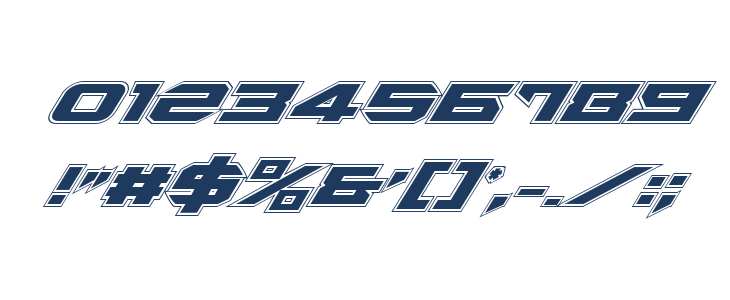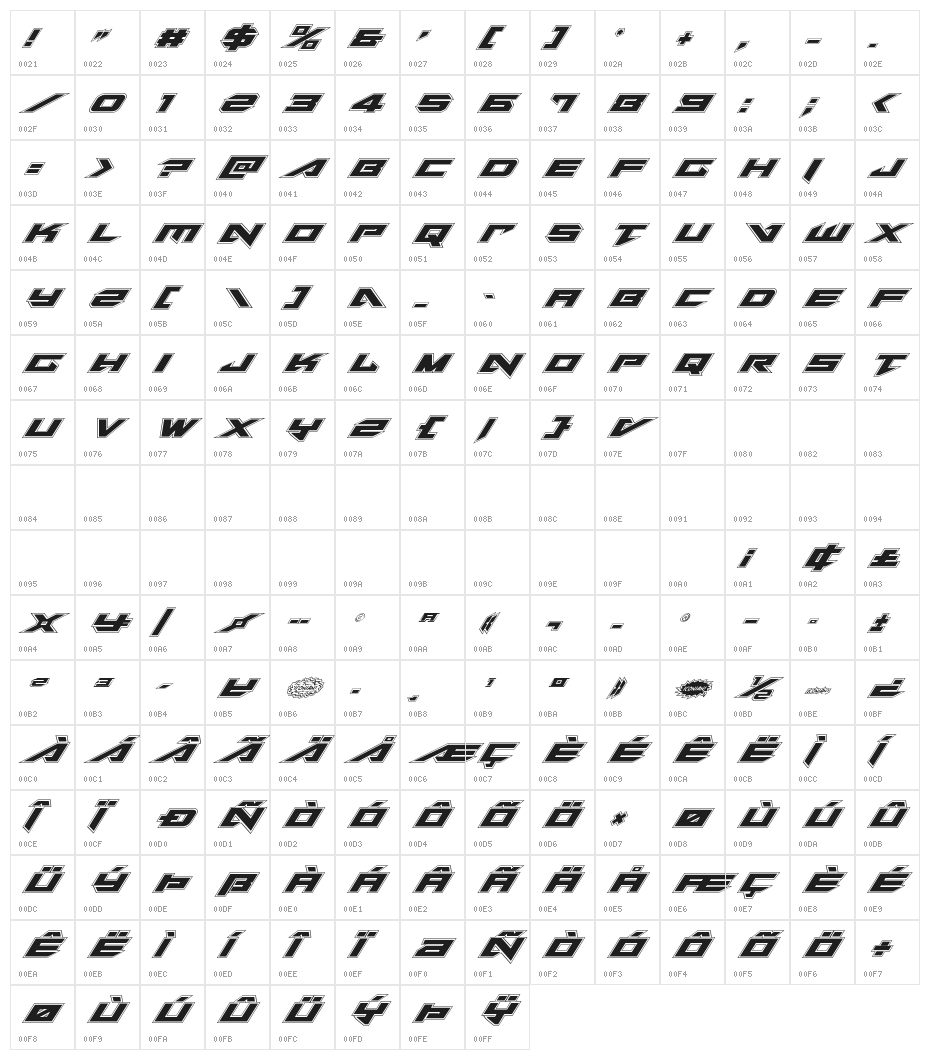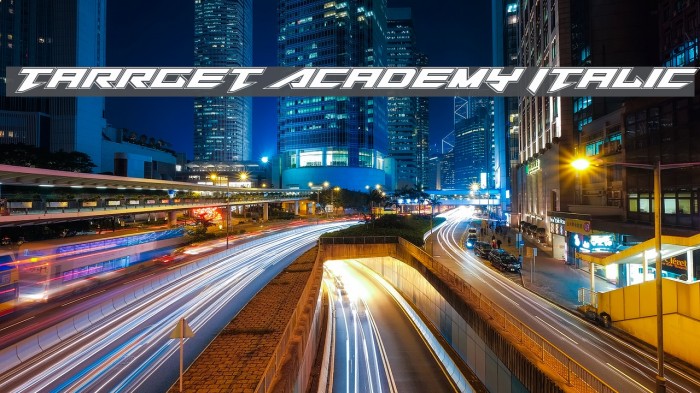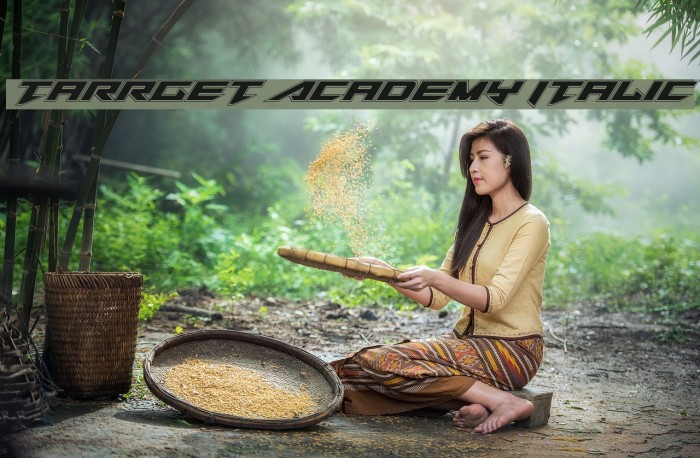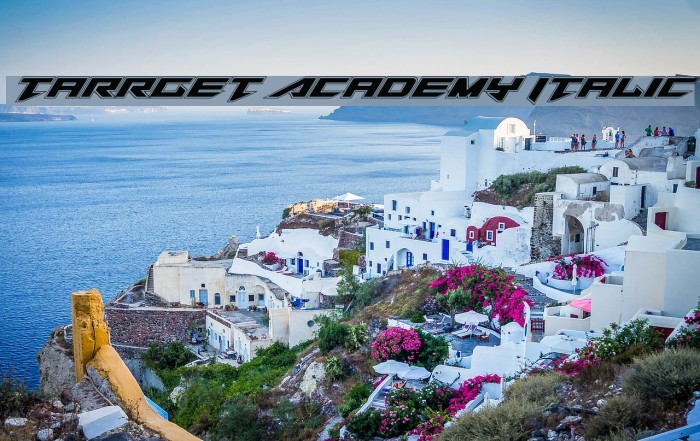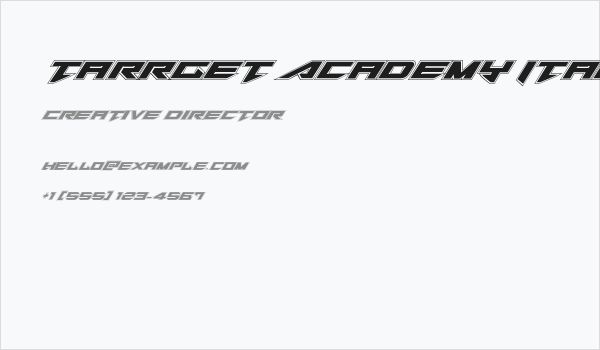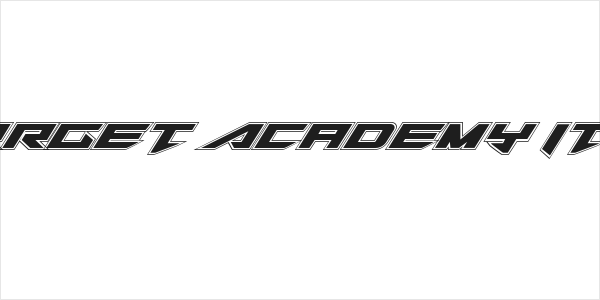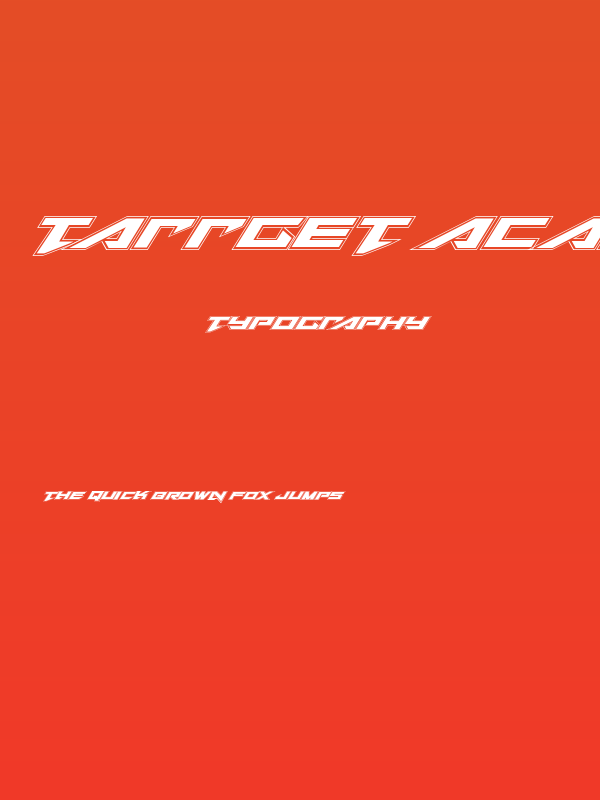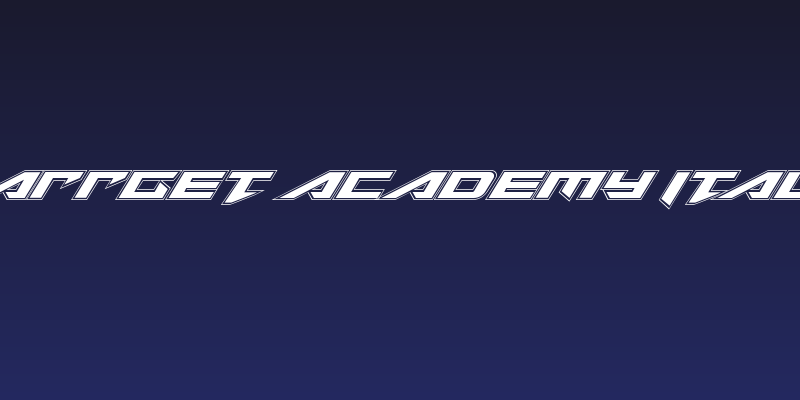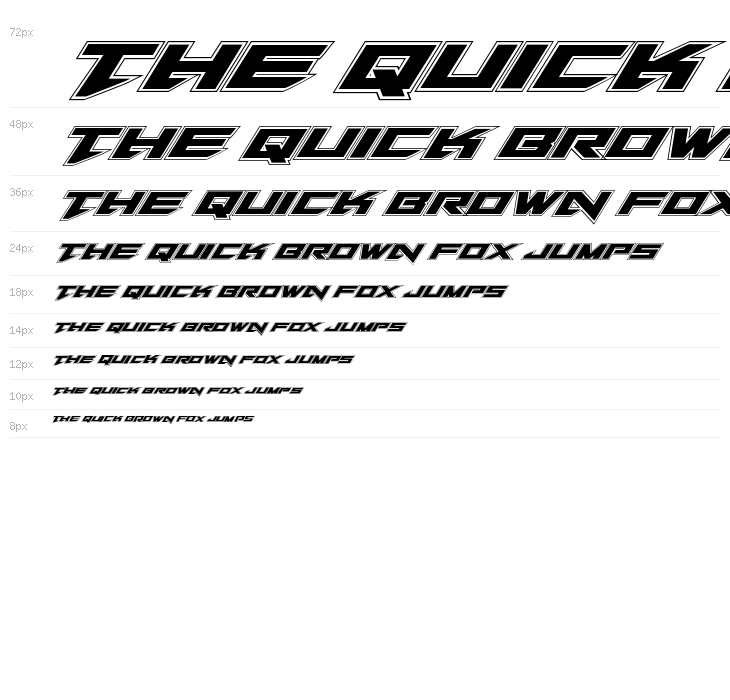
Tarrget Academy Italic Font
Tarrget Academy Italic Description
This font features a bold, italicized style with a futuristic and dynamic appearance. The characters are sharply angled, giving a sense of motion and speed. The strokes are thick, with a high contrast between the main strokes and the thin lines that outline each letter. This creates a striking visual effect that is both modern and aggressive. The uppercase and lowercase letters maintain a consistent style, with the uppercase being more prominent. The numbers and special characters are designed to match the overall aesthetic, ensuring uniformity across all glyphs.